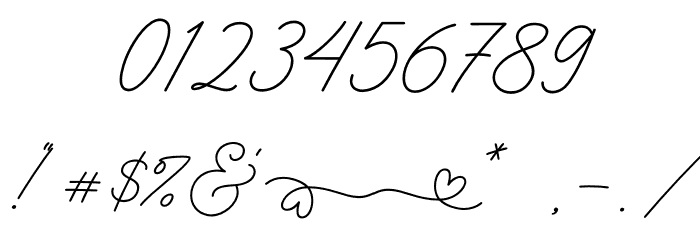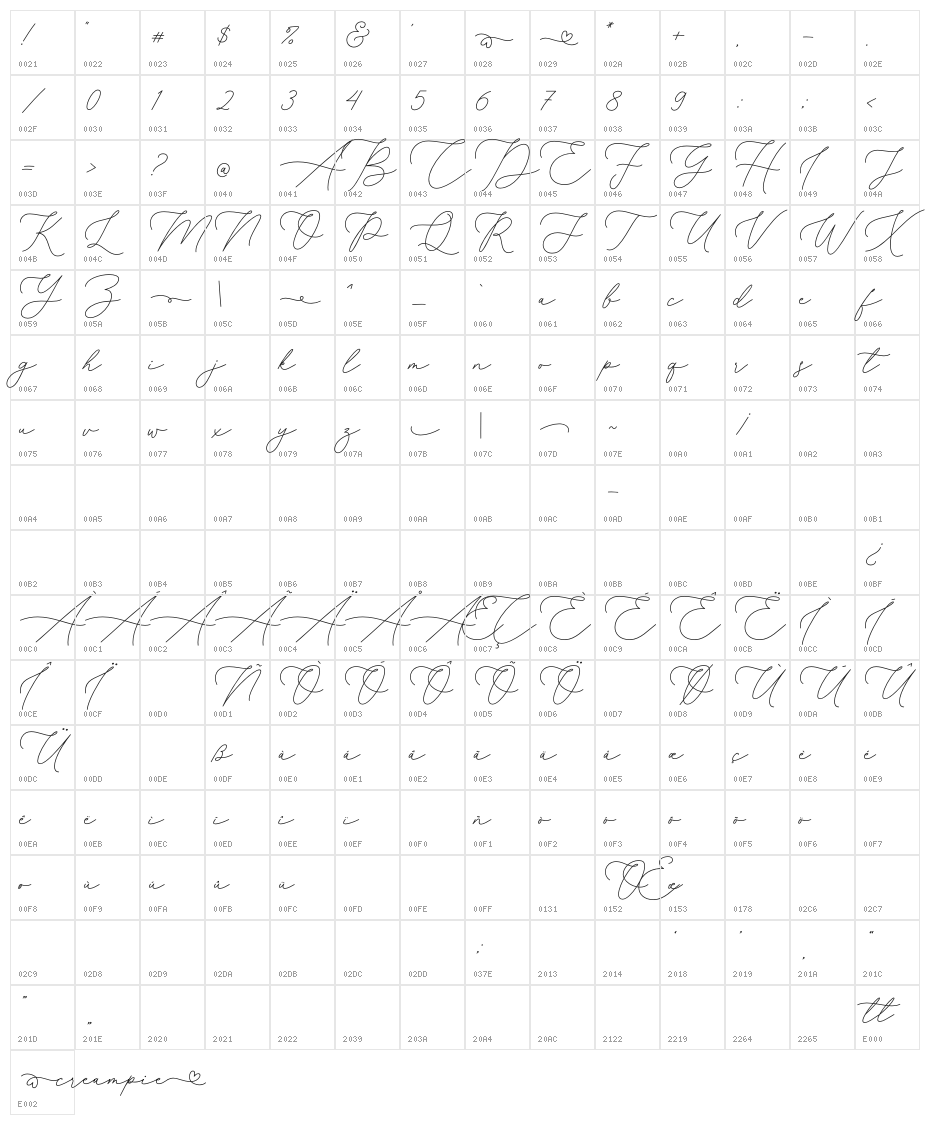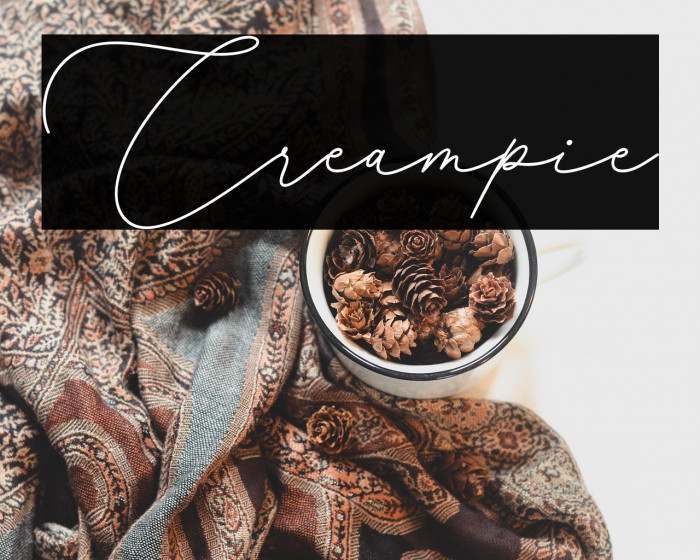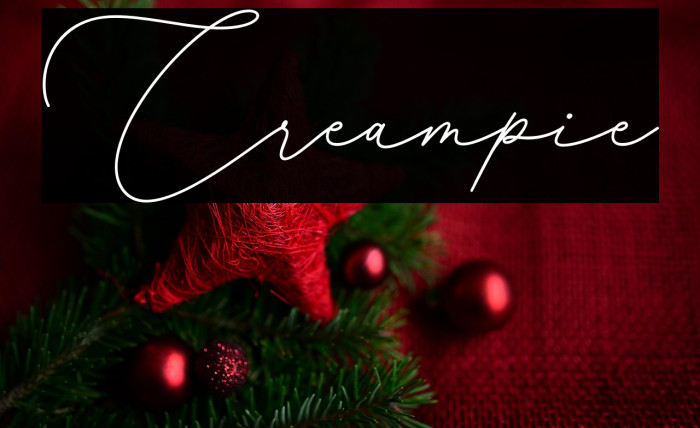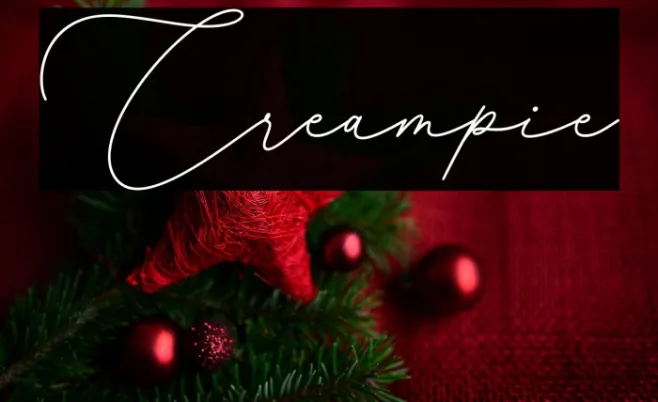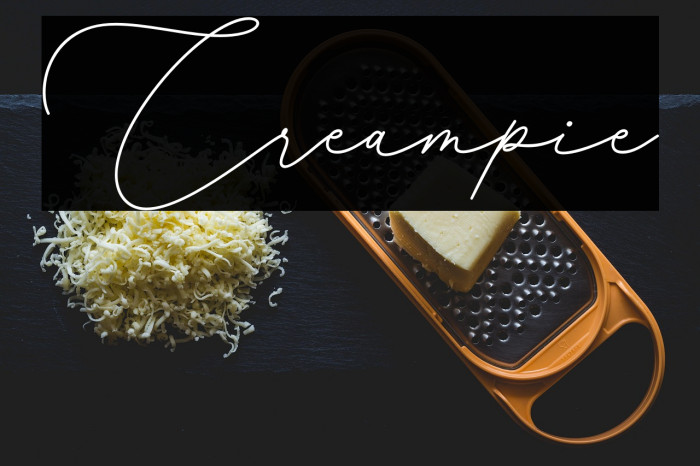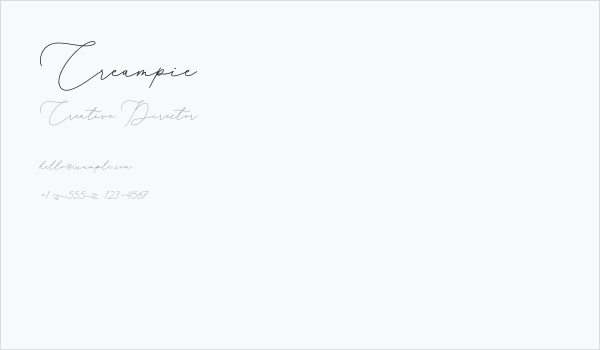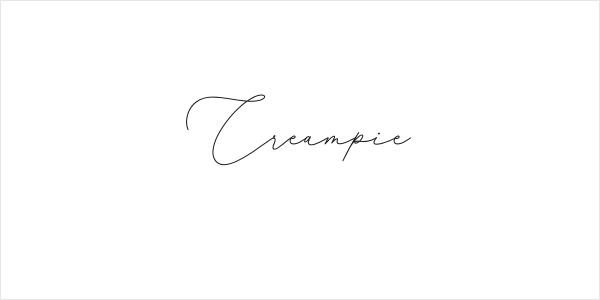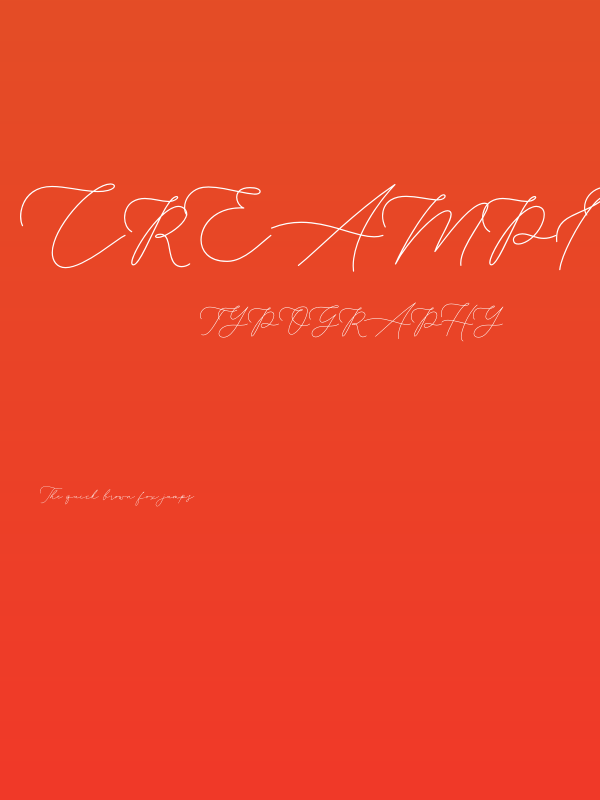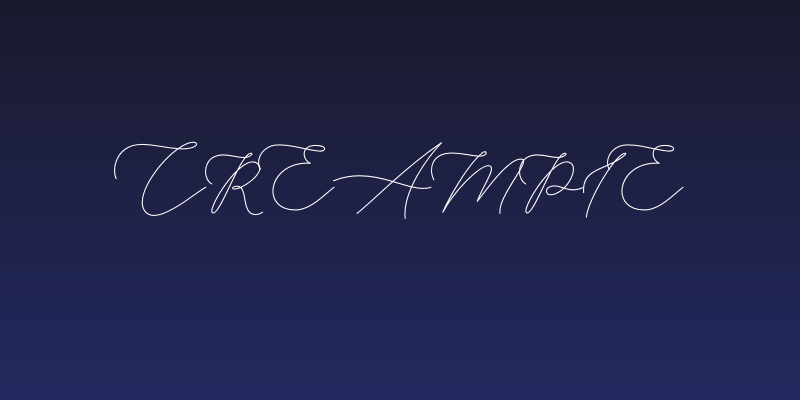
Creampie Font
Creampie Description
This elegant script font features a flowing, cursive style with delicate, thin strokes that give it a graceful and sophisticated appearance. The uppercase letters are slightly more ornate, with sweeping curves and loops that add a touch of flair. The lowercase letters maintain a consistent flow, making them ideal for seamless connections in cursive writing. The numerals and special characters are designed to match the overall aesthetic, with a refined and cohesive look. This font exudes a sense of elegance and is perfect for projects that require a touch of class and sophistication.
| Use Case | Logos, Invitations, Decorative Text |
| Proposed Projects | Ideal for wedding invitations, elegant branding, personal stationery, and decorative signage. |